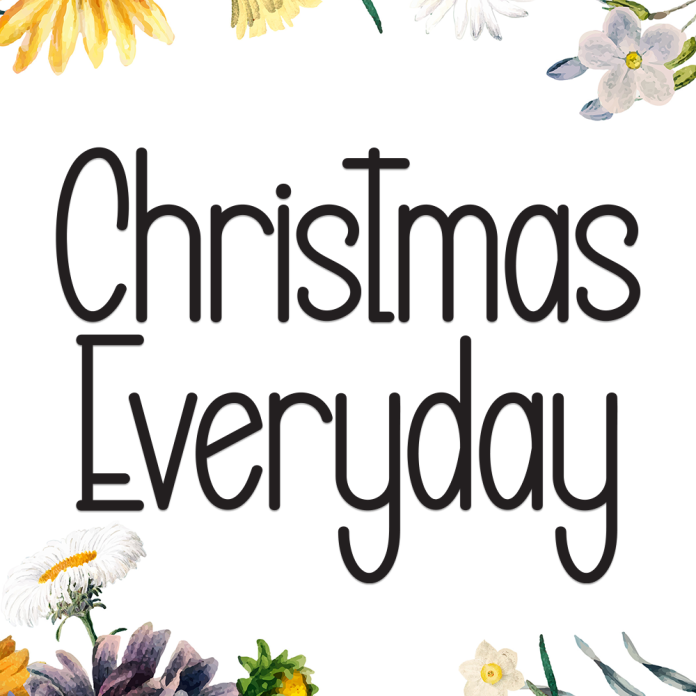
Christmas Everyday is a bold and festive display font that brings the warmth and joy of the holiday season into every design. With its playful shapes and seasonal charm, it’s perfect for projects that need a touch of Christmas magic all year round.
Eye-catching display style with holiday-inspired details
Perfect for Christmas cards, posters, and festive product packaging
Strong, decorative letterforms that stand out
Celebrate the spirit of Christmas any day of the year with Christmas Everyday.